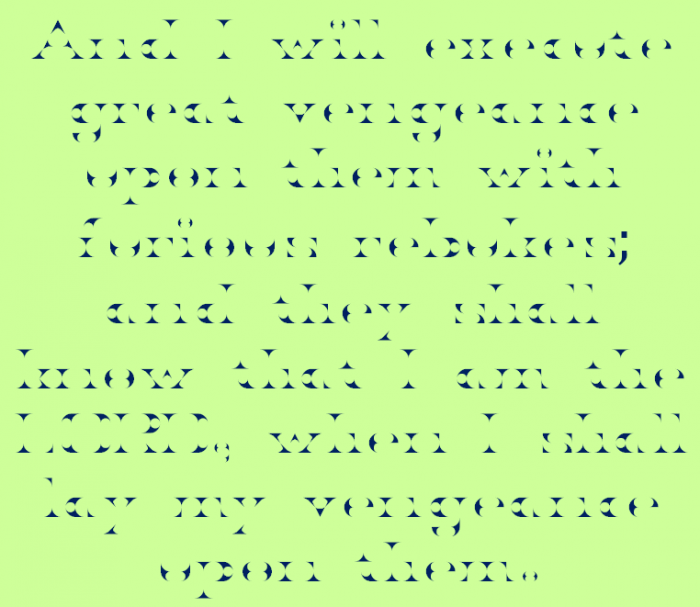
What if there was a font with mostly serifs and not much else
Cool!
Nice one! Legible, attractive, clever. Good luck!
Interesting. Remember to add a sample
Is there some way to delete this sample?